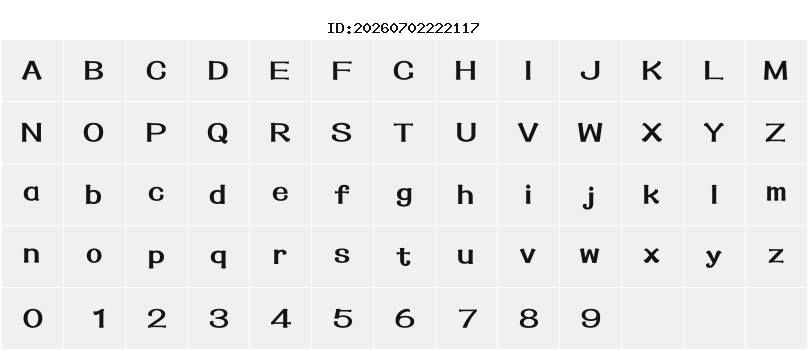
242-上首海浪体 Preview
• Font Name: 242-上首海浪体
• Font ID: 242-SS HaiLangTi:Version 6.00
• Full Font Name: 242-上首海浪体
• Version: Version 6.00 April 27, 2023
• PostScript Name: 242-SSHaiLangTi
• Character Count: 7569
• Manufacturer: 上首造字
About 242-上首海浪体.ttf
242-上首海浪体.ttf is a modern, elegant sans-serif font designed for ultimate readability and visual harmony. Perfect for branding, headlines, web design, and print materials.